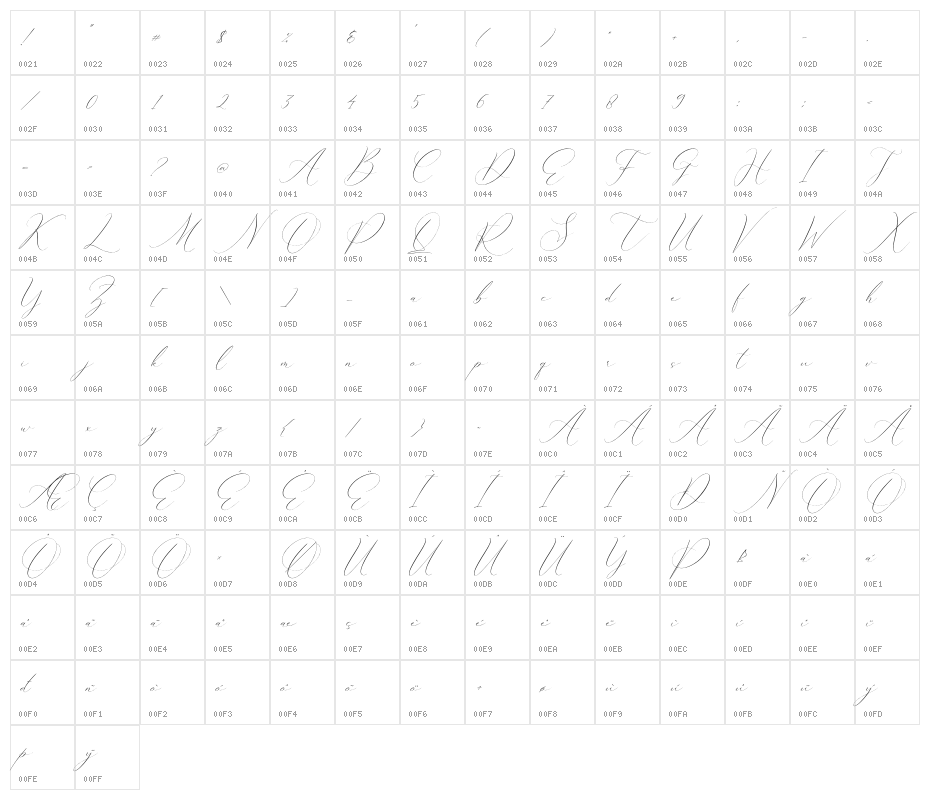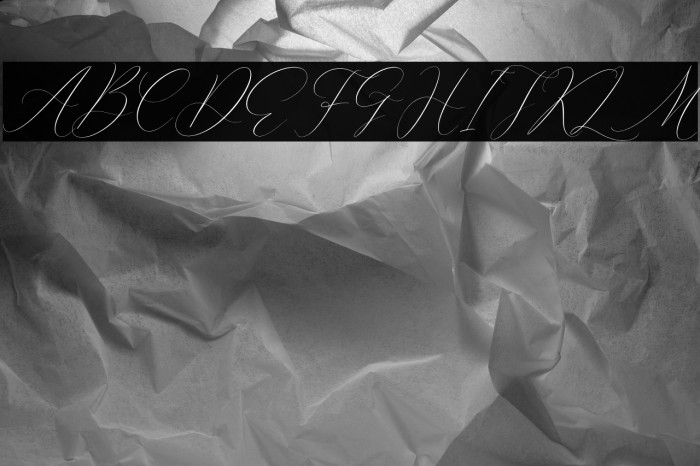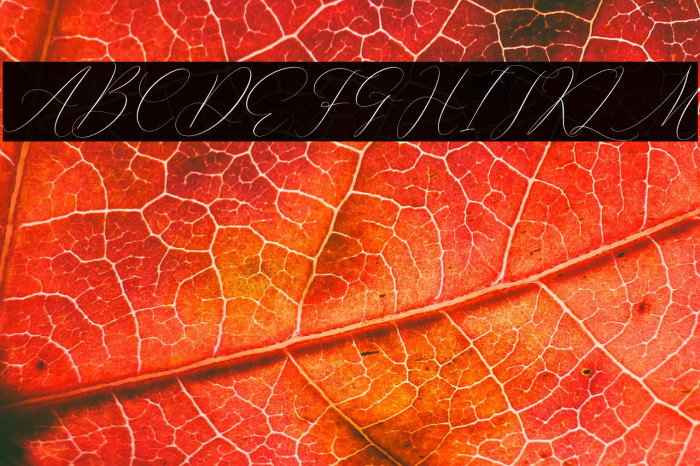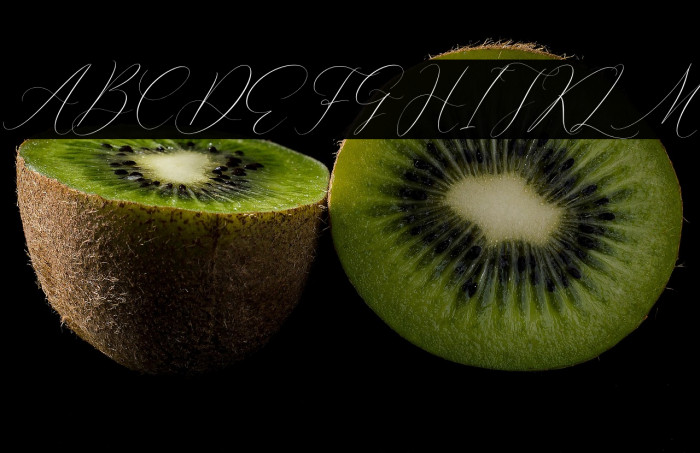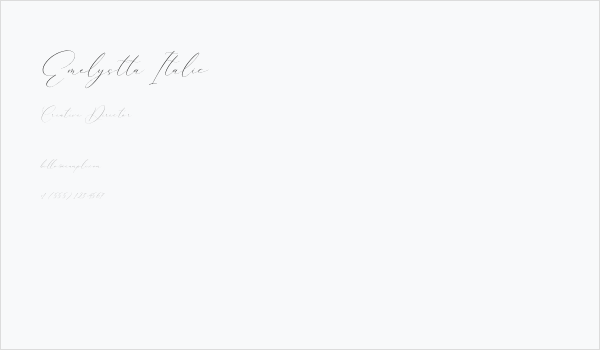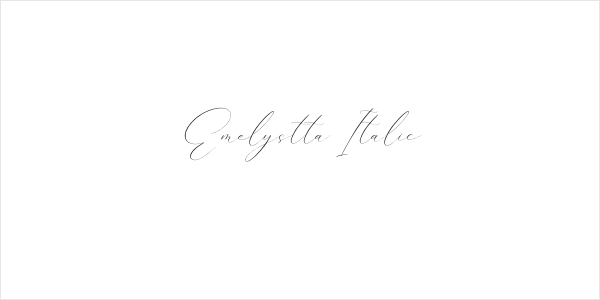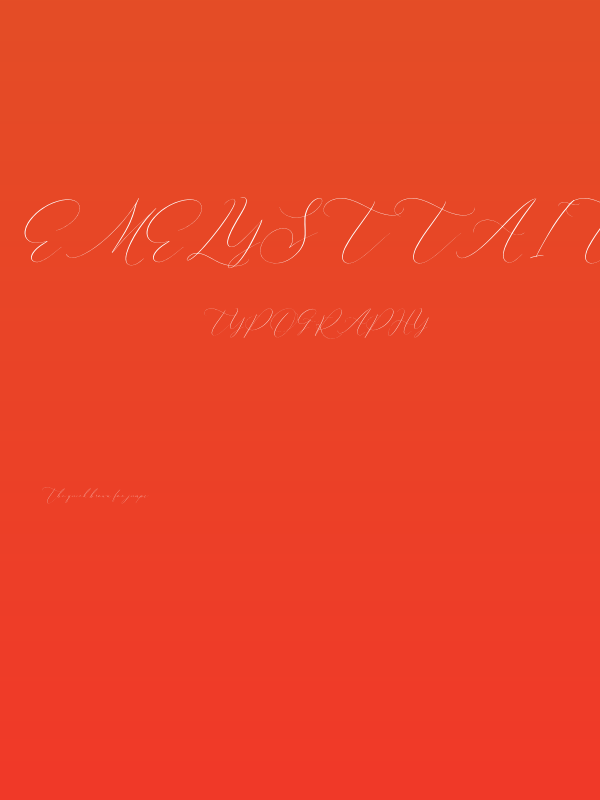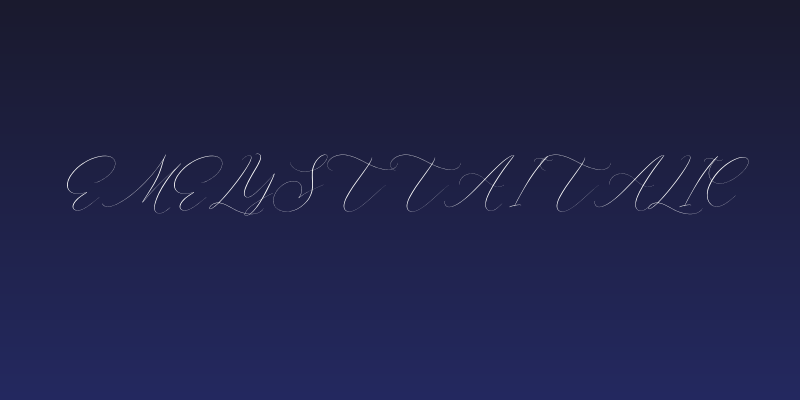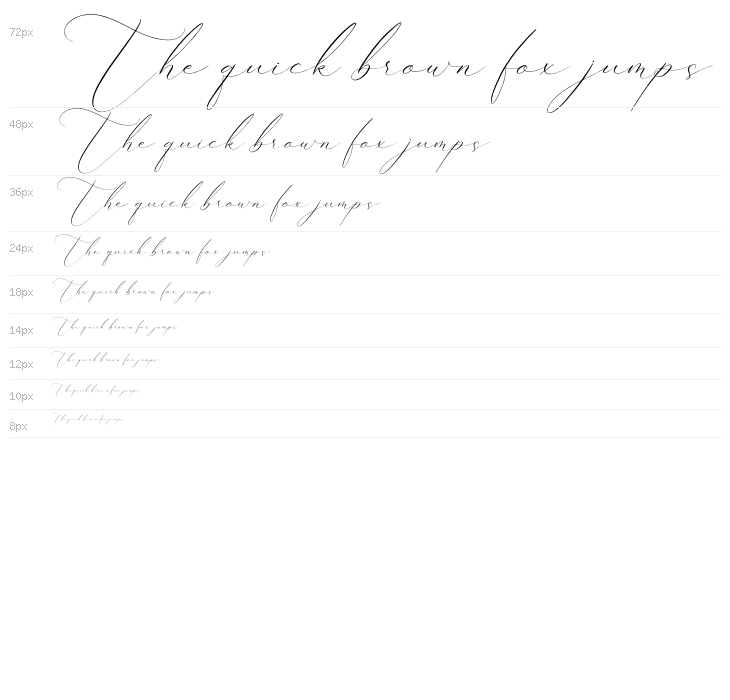
Emelystta Italic Font
Emelystta Italic Description
This elegant script font features a flowing, cursive style with delicate, thin strokes that give it a graceful and sophisticated appearance. The characters are connected, creating a seamless and fluid look that is both classic and modern. The uppercase letters are slightly more ornate, with gentle curves and loops, while the lowercase letters maintain a consistent, smooth flow. The numerals and special characters are designed to match the overall aesthetic, ensuring a cohesive appearance across all text. This font is ideal for projects that require a touch of elegance and refinement.
| Overall Style | Elegant, Modern |
| Proposed Projects | Ideal for wedding invitations, elegant branding, personal stationery, and upscale packaging. |